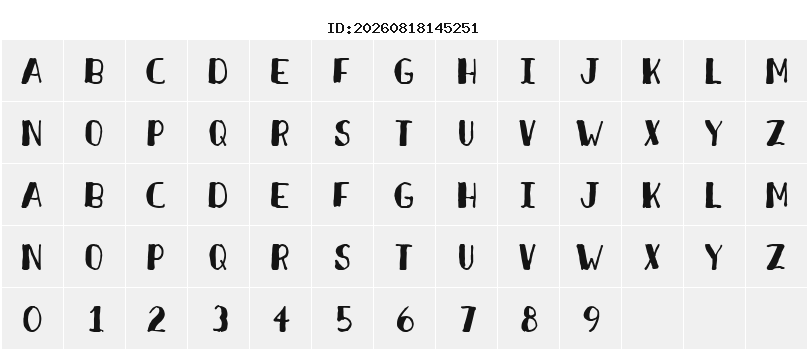
• Font Name: Sloppy Classic Filled
• Full Font Name: Sloppy Classic Filled
About Sloppy Classic Filled.ttf
Sloppy Classic Filled.ttf is a modern, elegant sans-serif font designed for ultimate readability and visual harmony. Perfect for branding, headlines, web design, and print materials.